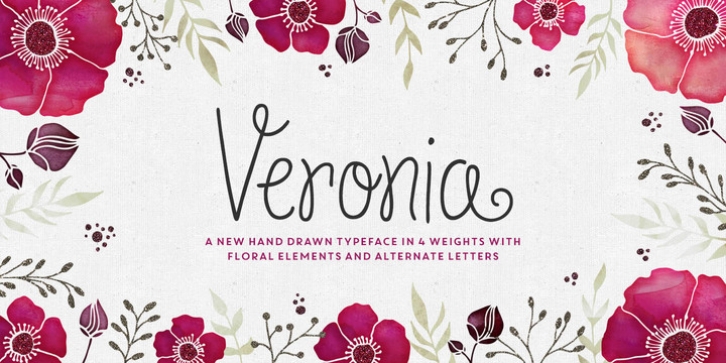
Veronia downloadDesigner: Cindy Kinash,
Publisher: Cultivated Mind
Meet Veronia! An elegant, handwritten mono-line font family designed by Cindy Kinash and Callie Hegstrom. Available in four weights, with floral elements and decorative alternate letters. Veronia is perfect for stationery, greeting cards, invitations, magazines and websites and more.